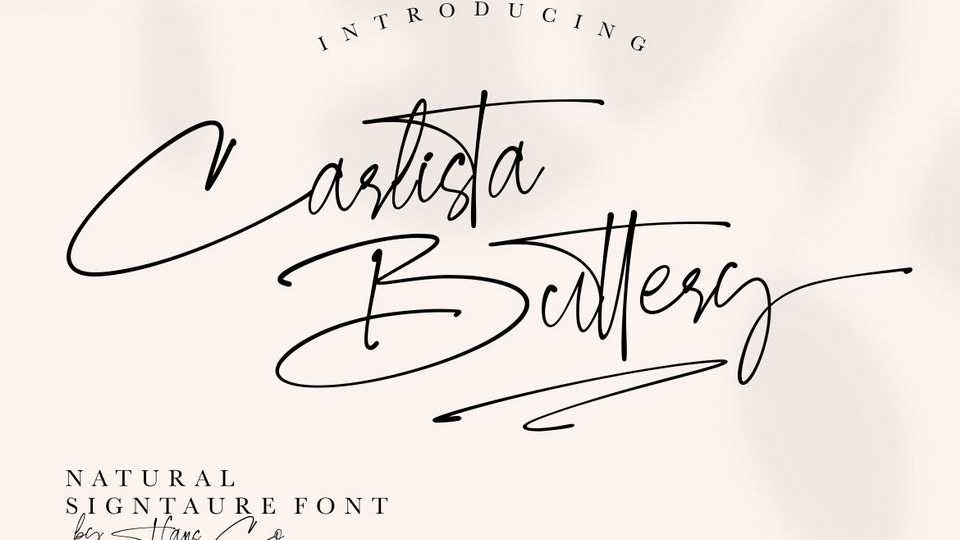
Download Carlista Buttery font, an elegant handwritten signature typeface with a natural & stylish flow. Carlista Buttery is great for adding a unique touch to any design project!
Designer: HansCo